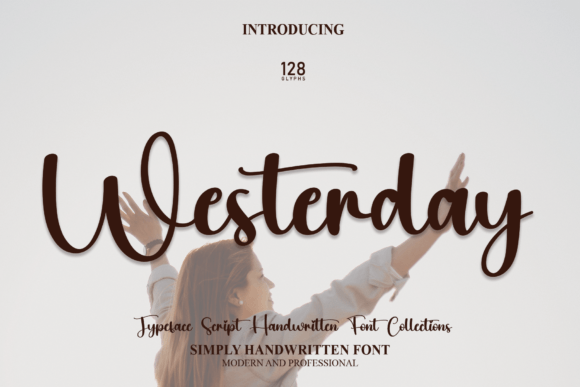
Introducing Westerday, a contemporary and timeless handwritten font that will add an elegant touch to any project. Whether you're creating a wedding invitation, a personal blog, or a social media post, Westerday's graceful strokes and impeccable form will make your words shine.
Inspired by classic calligraphy, Westerday boasts a perfect balance of classic and modern, with its flowing lines and charming imperfections. This font was meticulously crafted to enhance the beauty of your creations, adding a touch of sophistication and charm to every letter.
Westerday's versatility knows no bounds. It's perfect for creating beautiful wedding invitations, elegant branding materials, or eye-catching social media graphics. With its timeless appeal, Westerday will never go out of style, ensuring that your projects remain beautiful for years to come.
But Westerday is more than just a font. It's a way to express yourself with grace and style. Whether you're writing a love letter, designing a wedding invitation, or creating a social media post, Westerday will help you convey your message with beauty and impact.